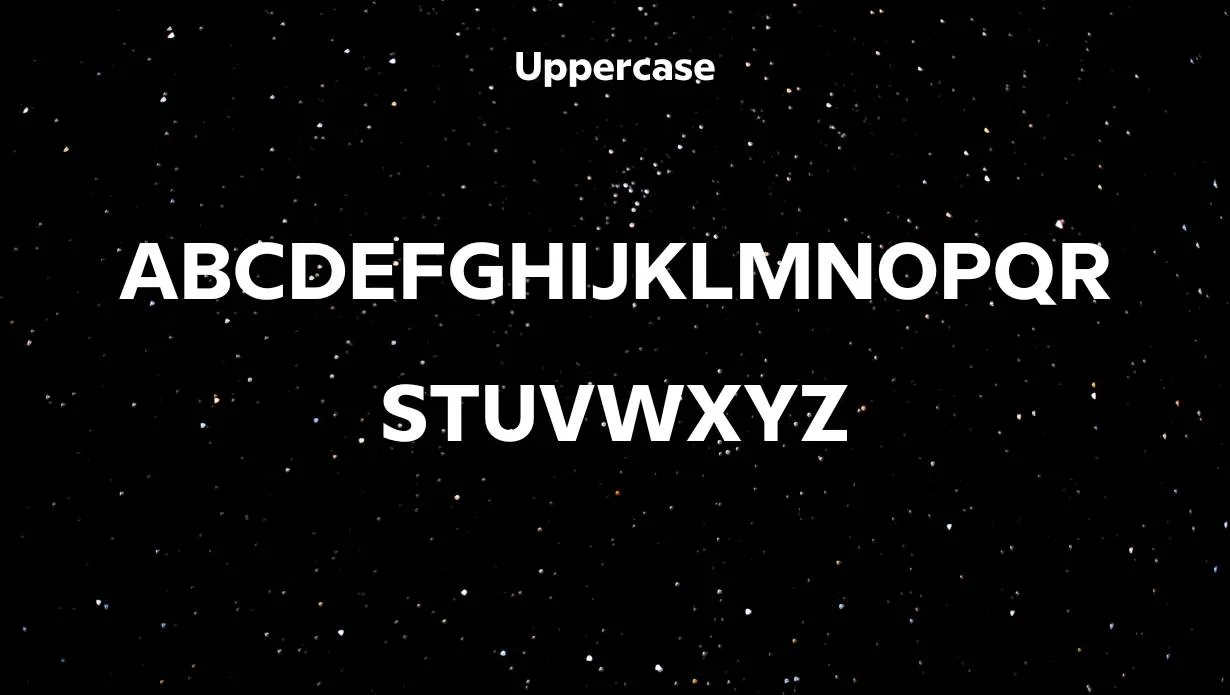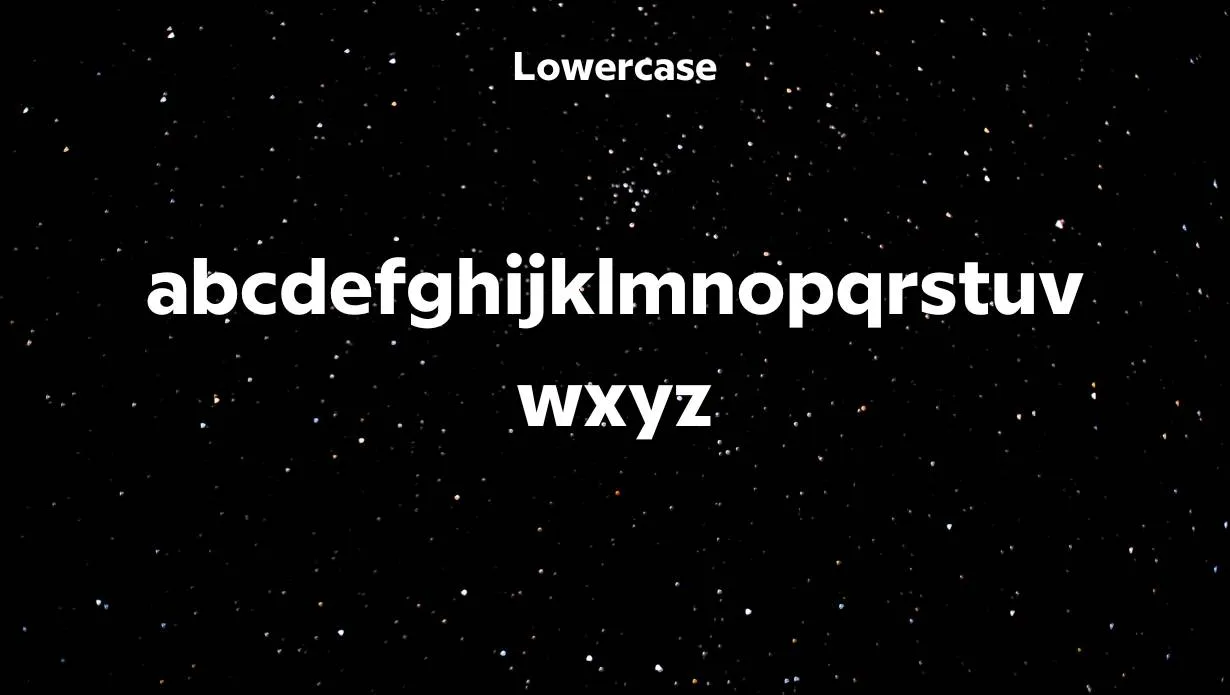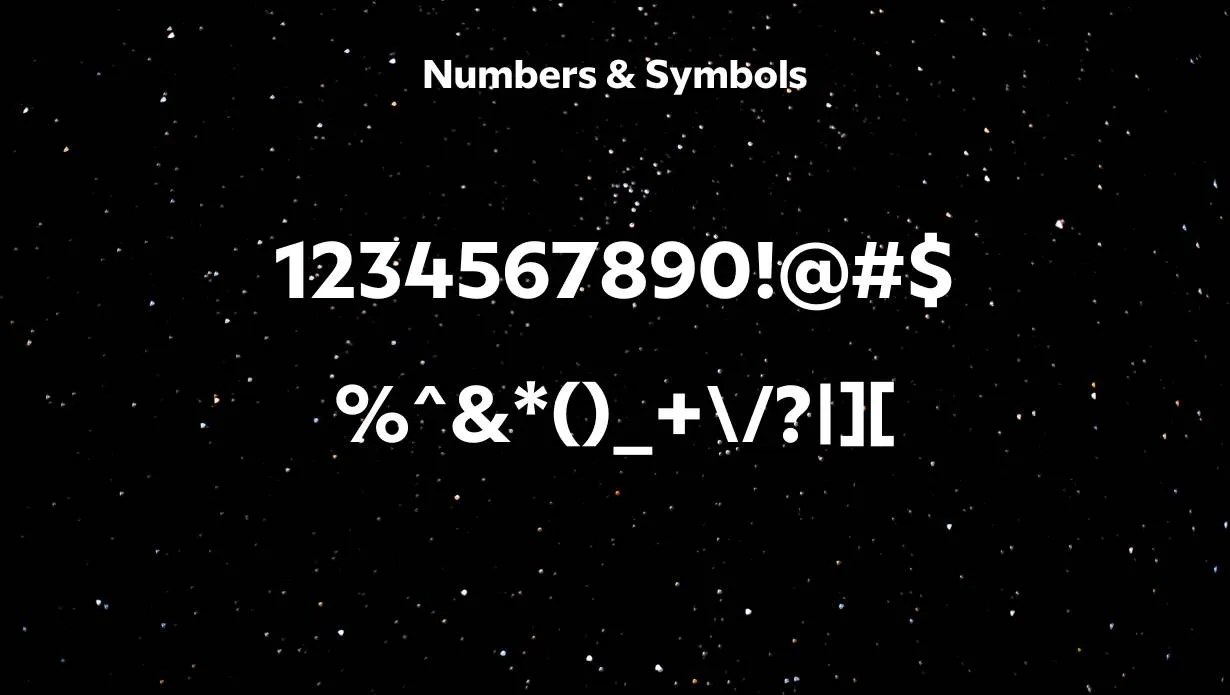
We are presenting the Milliard Font, a robust and contemporary font family consisting of 22 typefaces in the Sans-Serif category, designed by Rene Bieder.
This typeface is inspired by Grotesk fonts that succeeded in the early 20th period.
This typeface has advanced OTF format including traditional figures, arrows, and stylistic sets, and it also contains uppercase, lowercase, punctuation, Basic Latin, etc. To make stunning and high-quality text designs try this font with mont font and make interesting projects.